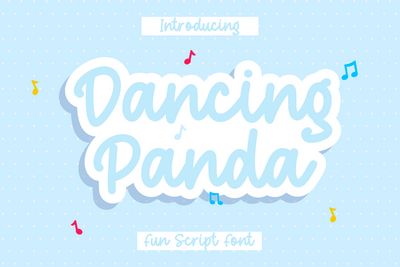
Dancing Panda - A Fun Script Font
Dancing panda is a fun script font. its a fun and modern script with a monoline style that makes this font a masterpiece, this font is perfect for your design project such as apparel, accessories and others. This font is PUA encoded which means you can access all of the glyphs with ease!